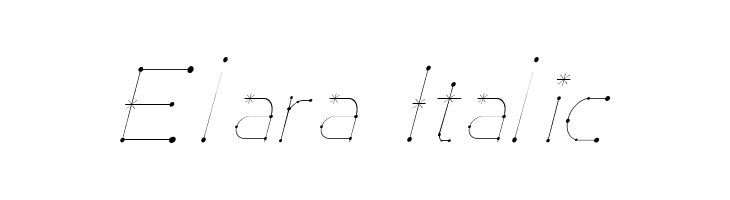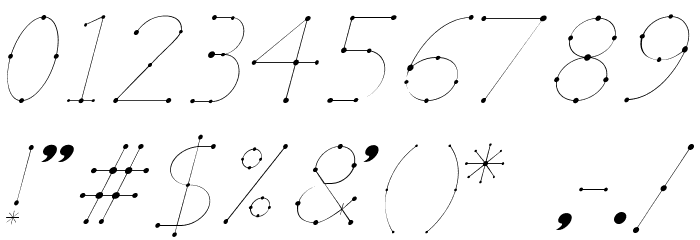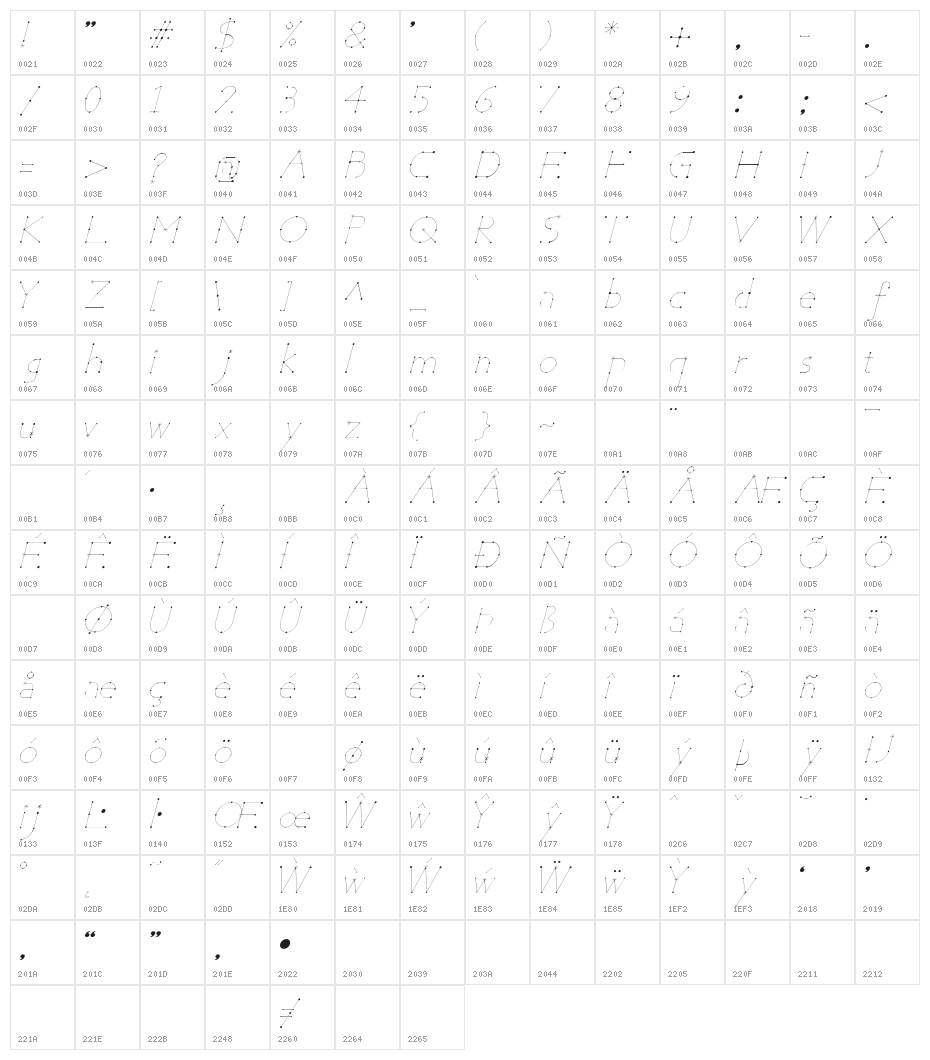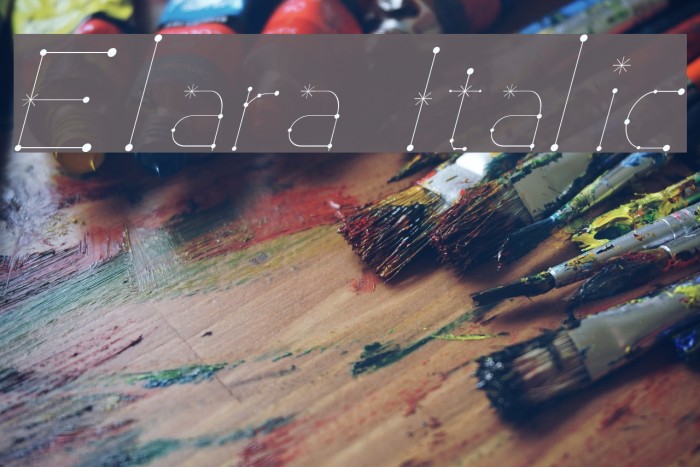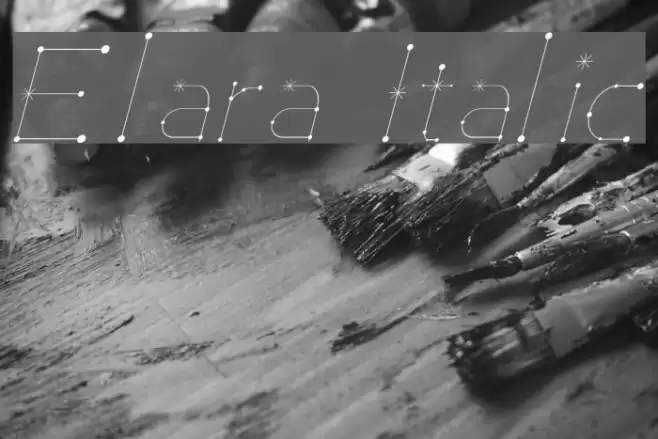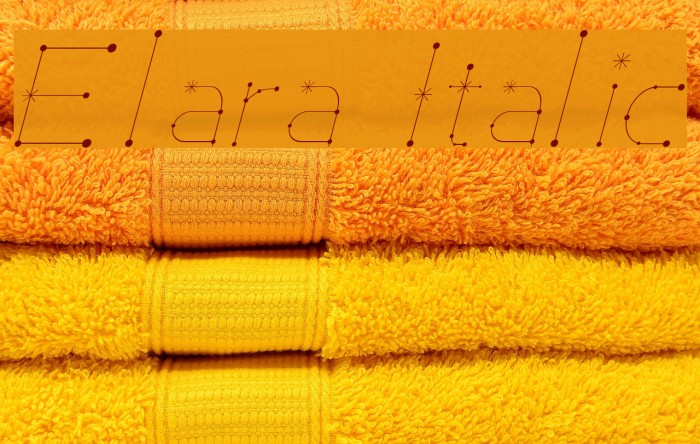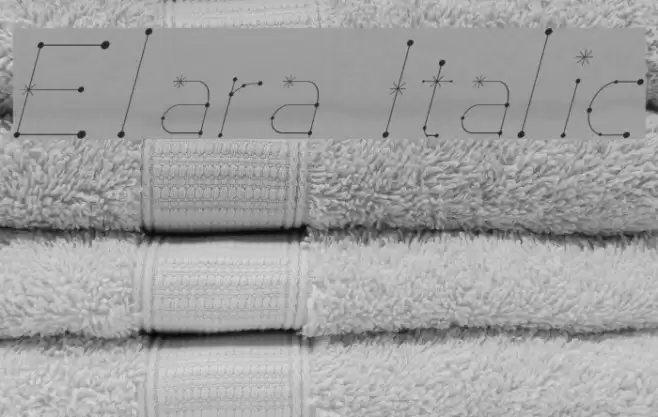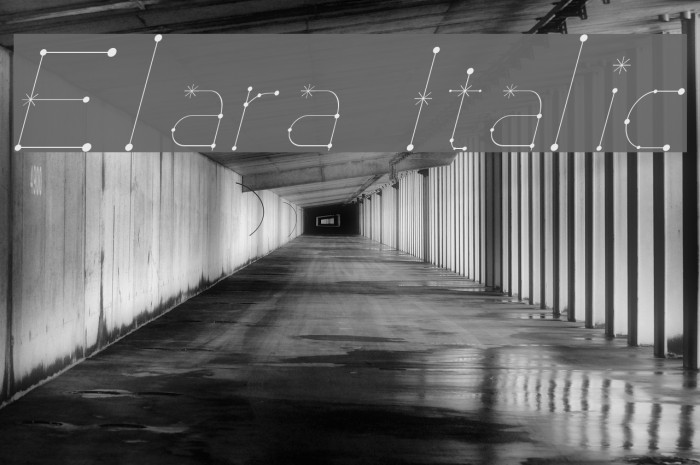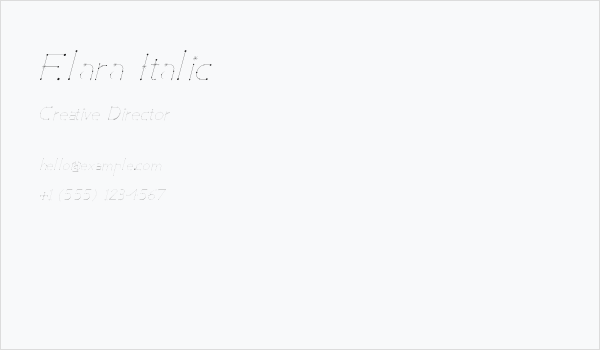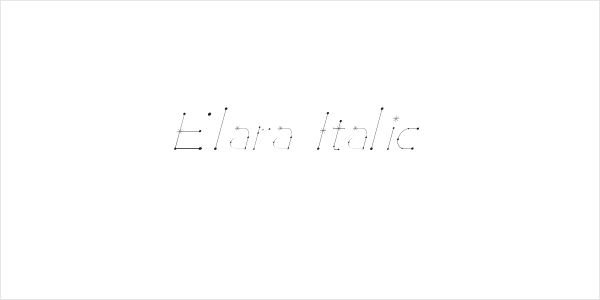
Elara Italic Font
Elara Italic Description
This font features a unique and modern design with a dotted and connected line style, giving it a technical and futuristic appearance. The characters are italicized, adding a dynamic and flowing aspect to the overall look. The uppercase and lowercase letters maintain a consistent style, with rounded edges and a slight slant. The numerals and special characters follow the same design principles, ensuring uniformity across all glyphs. This font's distinctive style makes it suitable for creative and innovative projects, where a modern and unconventional typeface is desired.
| Proposed Projects | Ideal for tech-related branding, futuristic designs, and creative digital projects. |